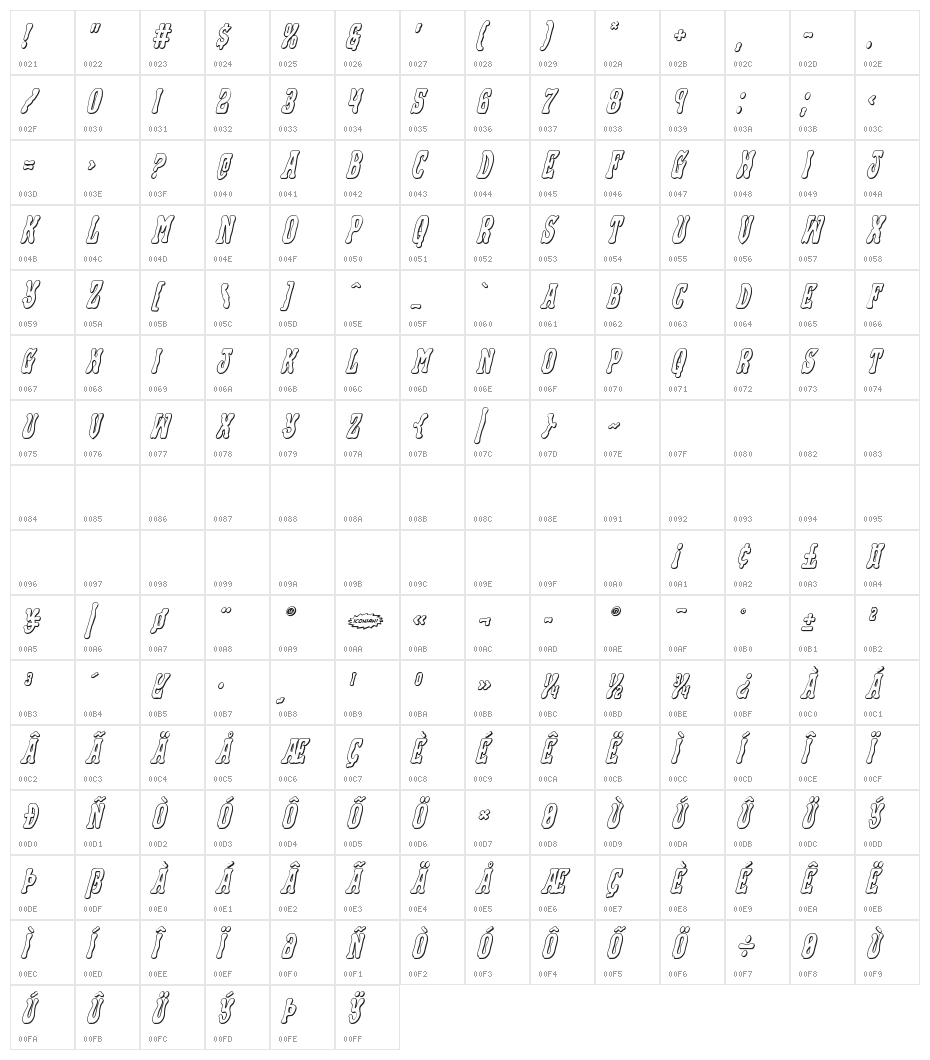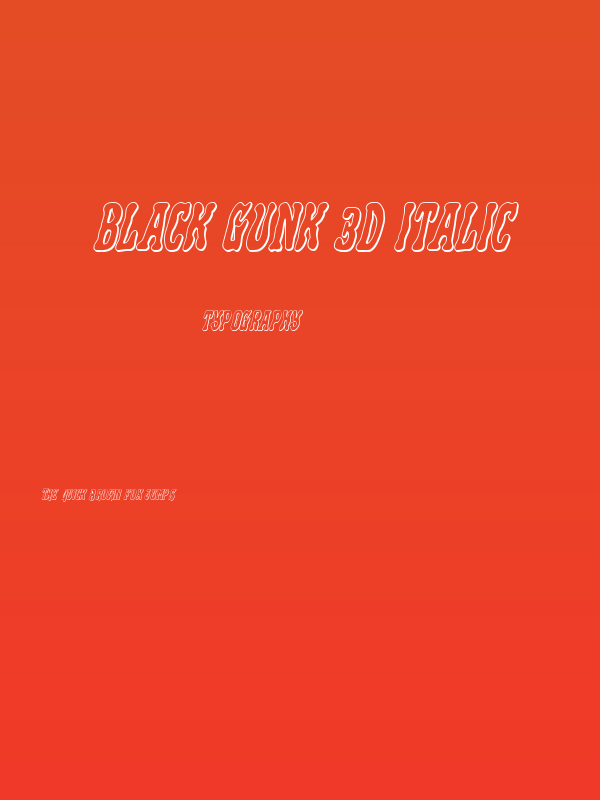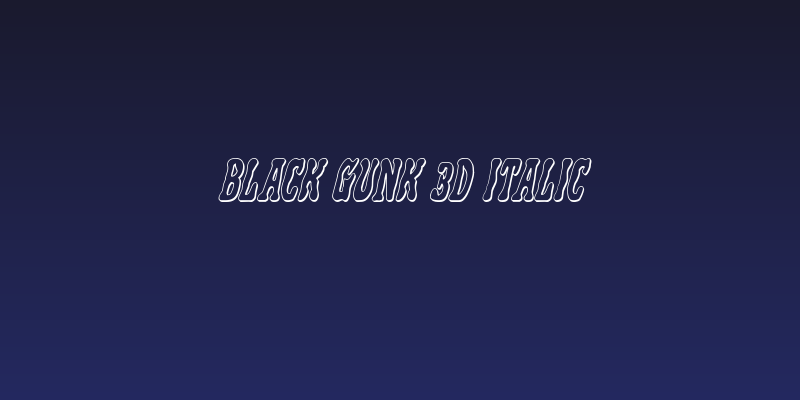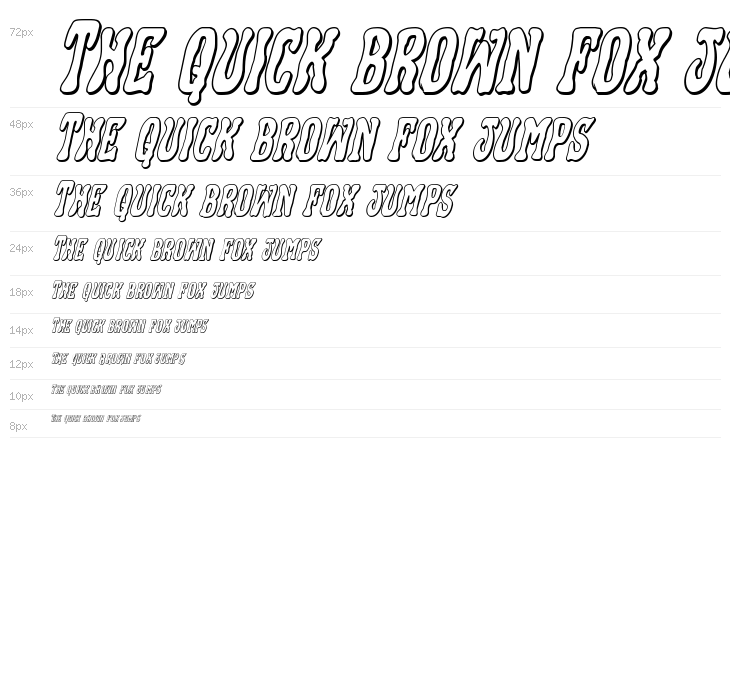
Black Gunk 3D Italic Font
Black Gunk 3D Italic Description
This font features a bold, playful design with a 3D effect that gives each character a sense of depth and dimension. The letters are italicized, adding a dynamic and energetic feel. The strokes are thick and rounded, creating a soft yet impactful appearance. The font has a hand-drawn quality, with irregular edges that enhance its whimsical and artistic style. It is highly decorative, making it suitable for eye-catching headlines and creative projects. The characters are closely spaced, contributing to its bold presence.
| Overall Style | Playful, Artistic, Decorative |
| Proposed Projects | Ideal for posters, logos, children's books, and creative branding projects. |